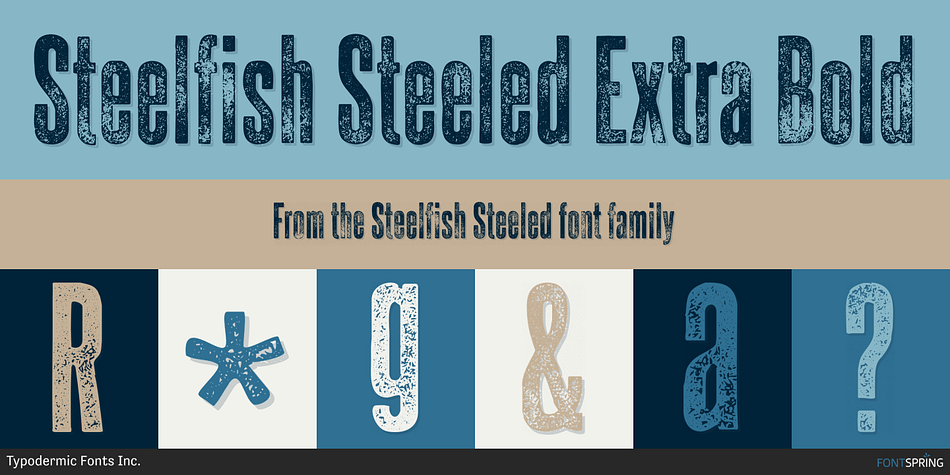
Steelfish Steeled Extra Bold
Designed by Ray Larabie, Steelfish Steeled is a display sans, grunge and wood type font family. This typeface has three styles and was published by Typodermic Fonts Inc.
Looking to add some grit and muscle to your design? Meet Steelfish Steeled. This ain’t your grandma’s delicate script. Steelfish Steeled brings a heavy-duty edge to any project, with a letterpress texture that screams, “hard work” and “honesty.”
But this is no one-trick pony. Steelfish Steeled offers three variations of letter textures, shuffled automatically in OpenType-savvy programs for a more natural, realistic effect. And if you want to disable this feature, simply toggle the “standard ligatures” function in your program.
Of course, this bad boy comes in three rusty weights, each one packing a serious punch. But don’t stop there. Steelfish has other flavors too: Steelfish, Steelfish Rounded, Steelfish Hammer, and Steelfish Unleaded. Whatever your message, whatever your audience, Steelfish has the muscle to back it up.
Steelfish Steeled’s compact letterforms and gritty texture will give your work the honest, hardworking personality it deserves. Get Steelfish Steeled today and get ready to flex your design muscles.